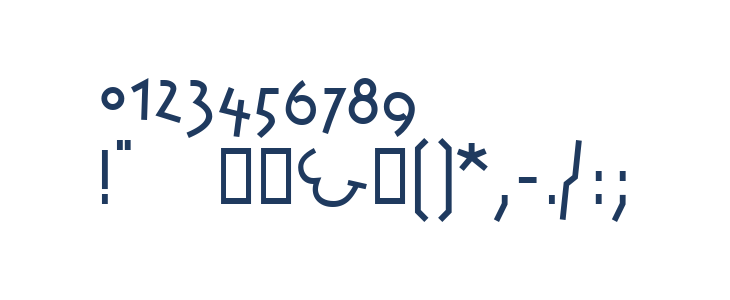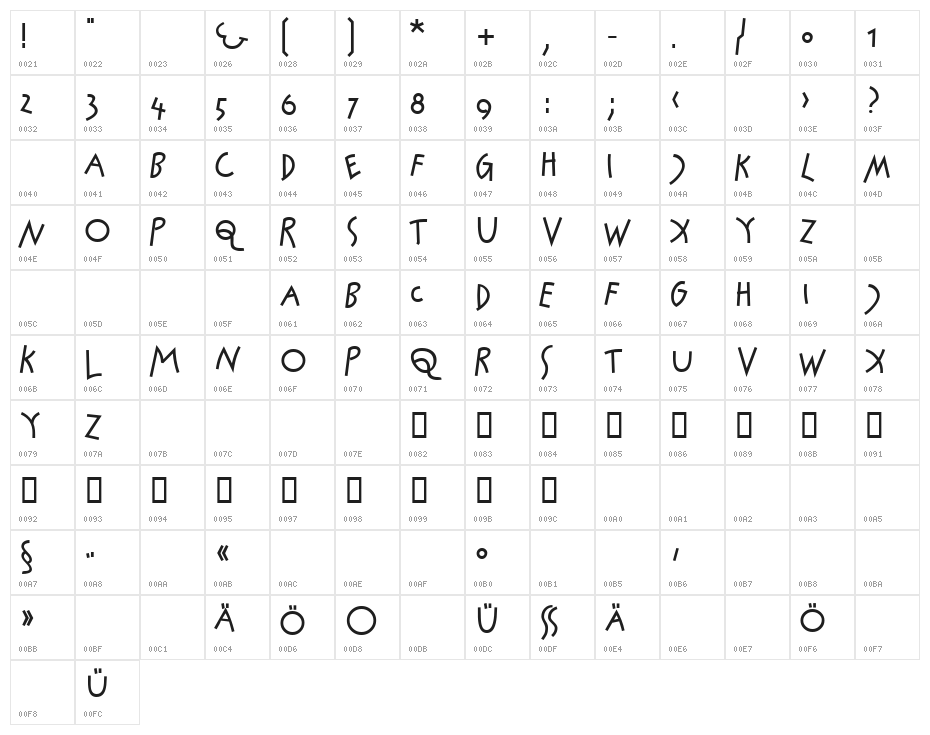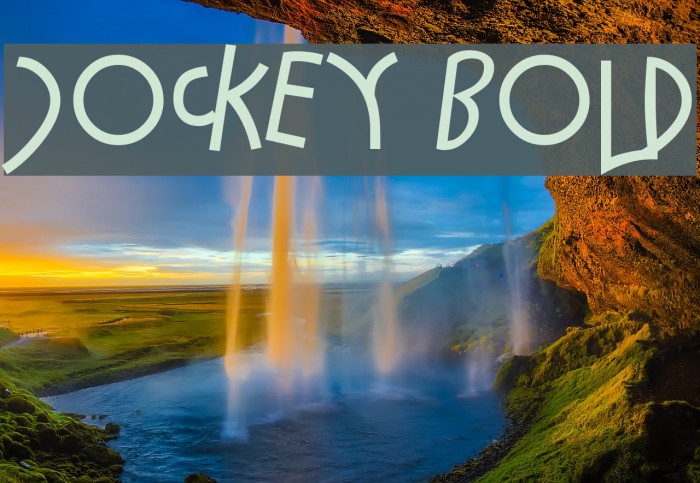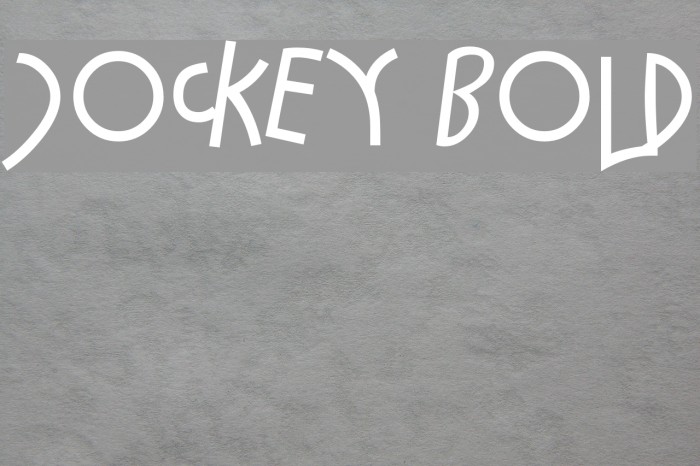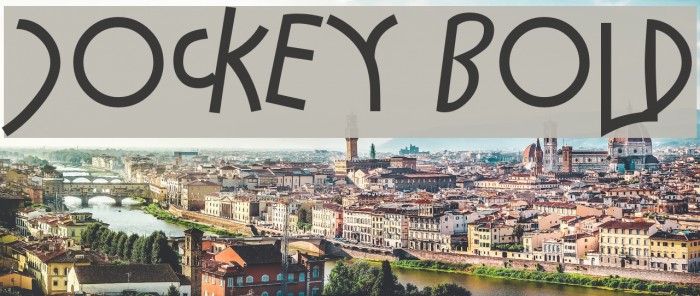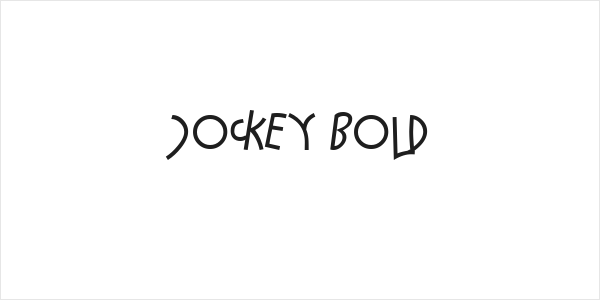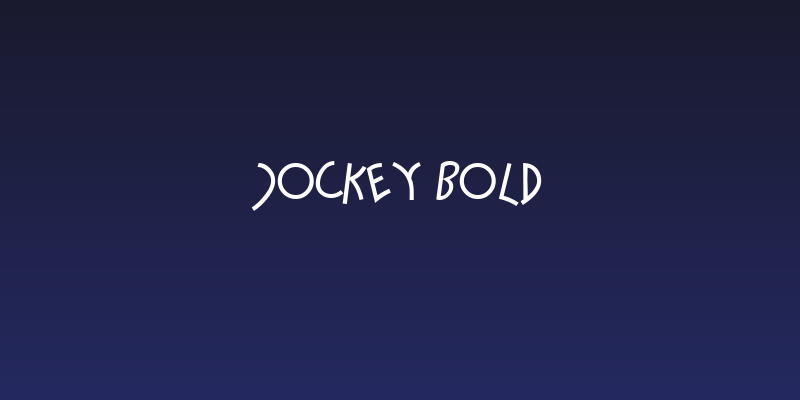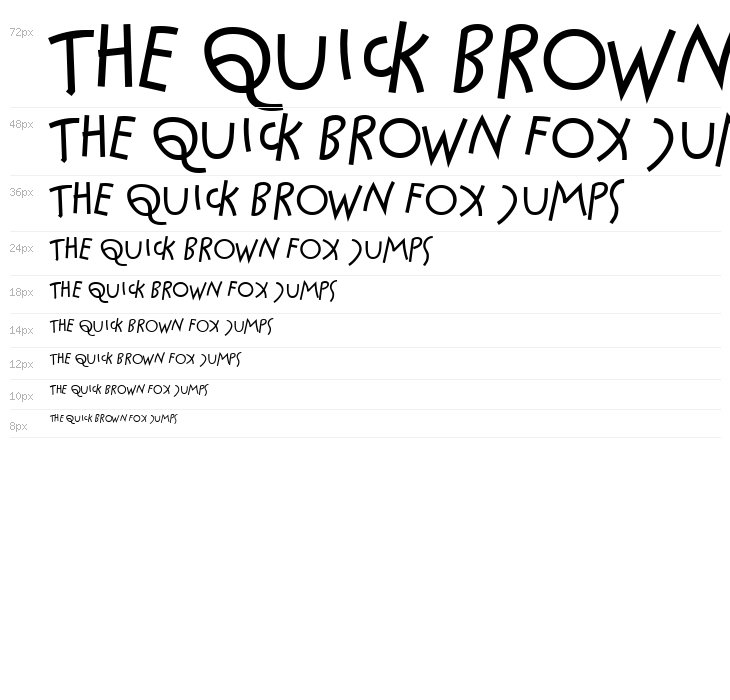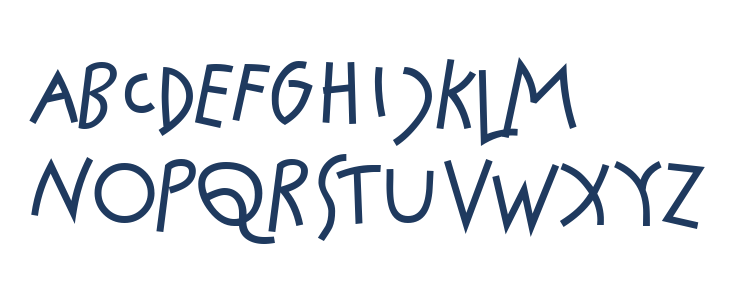
Jockey Bold Font
Jockey Bold Description
This font features a playful and dynamic style, characterized by its bold and slightly irregular letterforms. The uppercase letters have a unique, whimsical flair with varying stroke thicknesses that add a sense of movement and energy. The lowercase letters maintain this lively aesthetic, creating a cohesive and engaging look. The numerals are distinct and easily readable, complementing the overall design. Special characters are creatively styled, enhancing the font's playful nature. This font's boldness and distinctive style make it ideal for projects that require a touch of fun and creativity.
| Overall Style | Playful, Dynamic |
| Proposed Projects | Ideal for children's books, playful branding, posters, and creative advertising. |